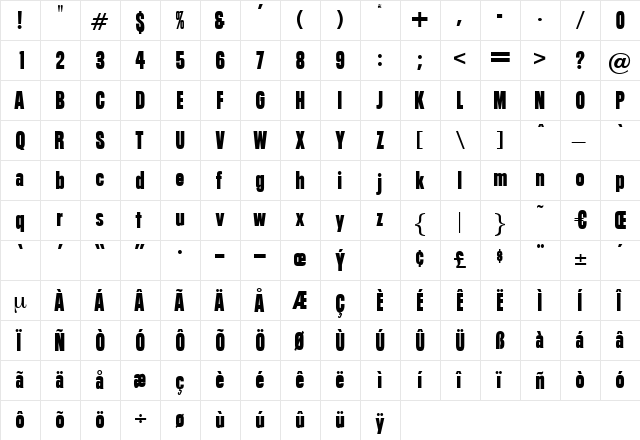
Hombre Regular
Design Context for Hombre Typeface
Hombre takes a measured approach to typography — its balanced proportions and neutral character make it a reliable workhorse for both digital and print work.
Pro Tip: Use Hombre in both headline and body roles to test its range before committing to a single application.